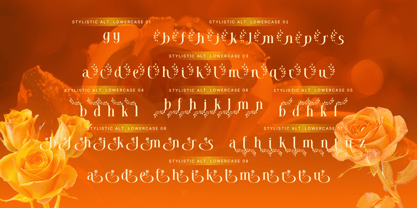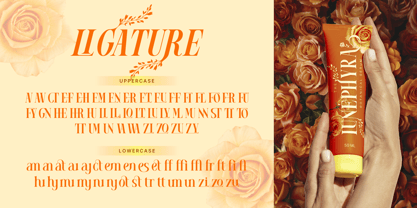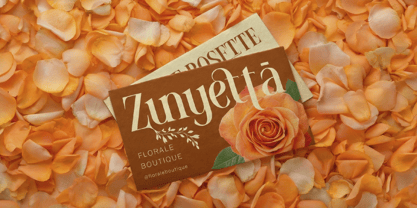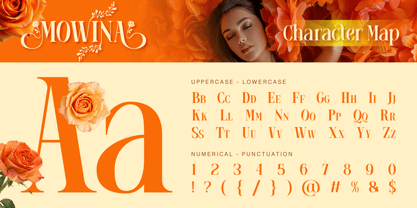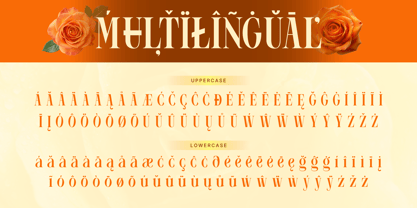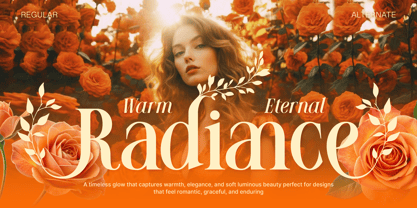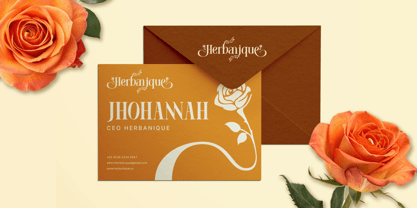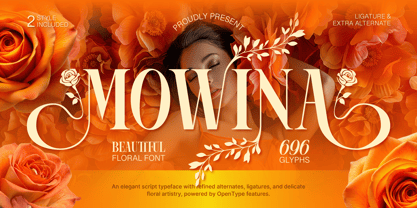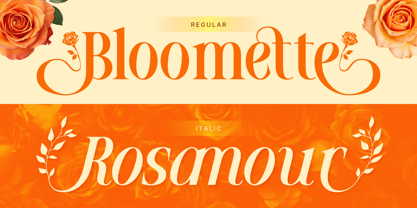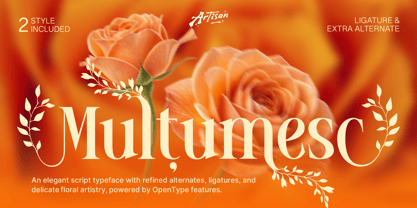
Mowina
The Mowina Font Family was designed by Meidy Meichico and published by Artisan Themes. Mowina contains 2 styles and family package options. More about this family
Mowina is a beautiful floral display font designed to bring a soft, romantic, and elegant touch to your designs. Inspired by blooming flowers and delicate botanical elements, this font features graceful letterforms enhanced with decorative floral alternates that make every word feel more artistic and expressive. Each character is carefully crafted with smooth curves and stylish details, making Mowina perfect for projects that need a feminine and sophisticated vibe. The font comes with plenty of alternates, ligatures, and decorative elements, allowing you to easily create stunning typography compositions. With 696 glyphs included, Mowina gives you plenty of creative possibilities. You can mix and match the alternates to design unique titles, logos, invitations, and branding materials. Mowina also includes two styles: Regular and Italic, giving you flexibility when creating elegant layouts or expressive headlines. This font works beautifully for wedding invitations, branding and logos, beauty and fashion designs, floral and botanical themes, social media graphics, packaging design, quotes and editorial layout.